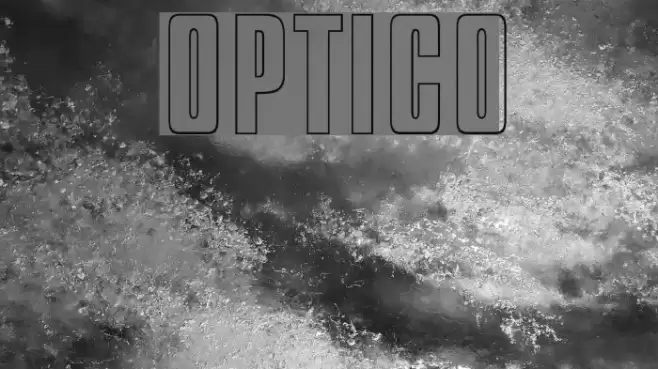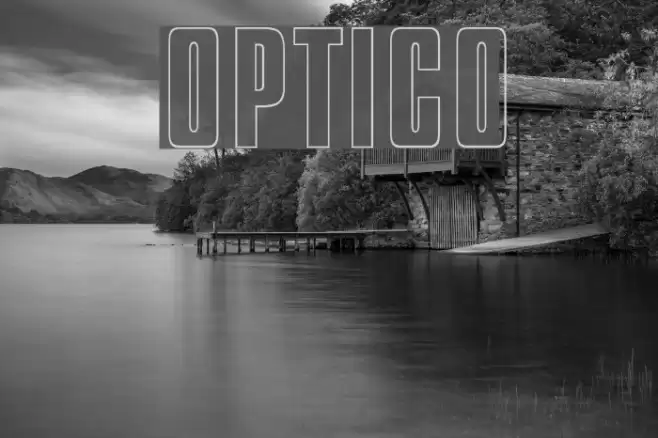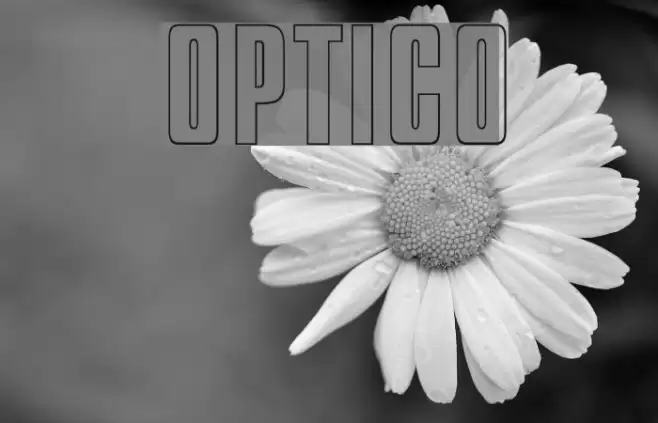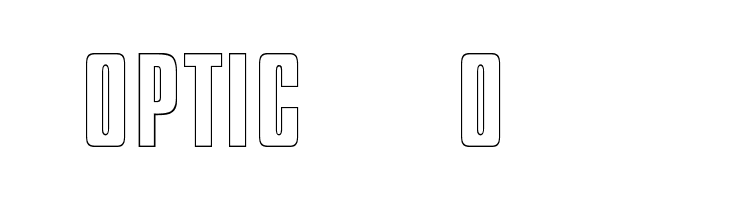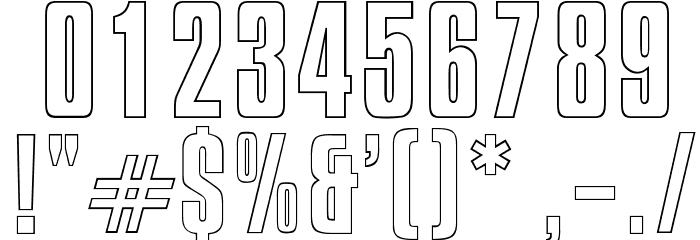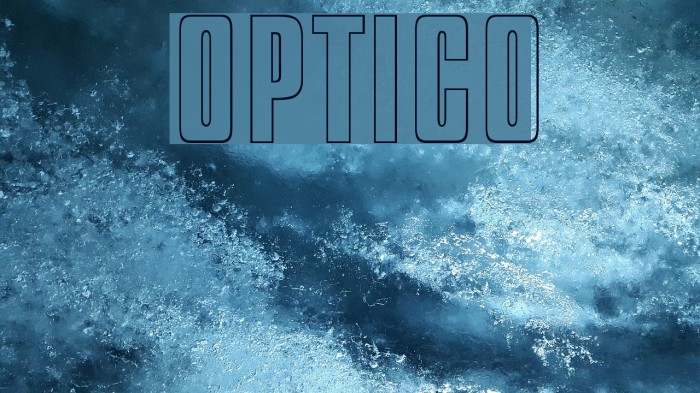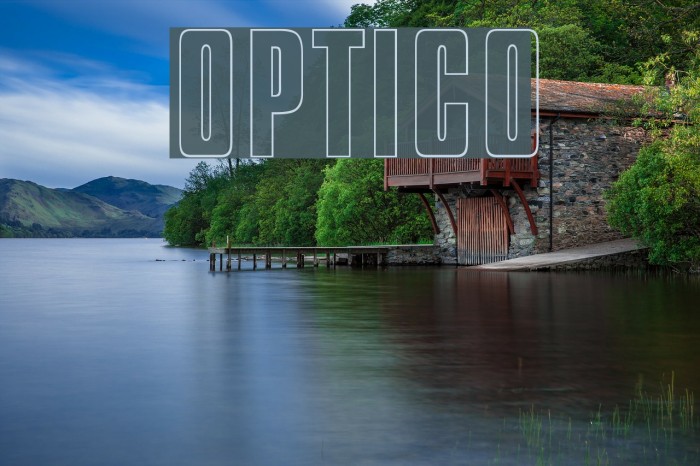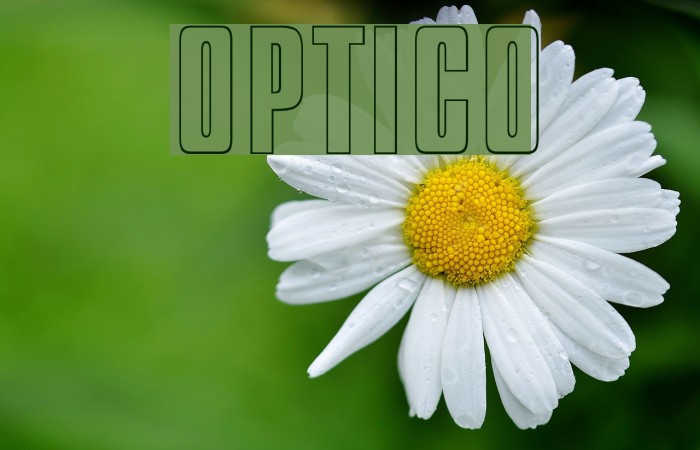
OPTICompitOutline Font
OPTICompitOutline Description
This font features a bold, outlined style that emphasizes each character with a strong, clear presence. The uppercase letters are tall and commanding, with a uniform width that gives a sense of stability and strength. The numbers and special characters maintain this consistency, ensuring a cohesive look across all text. The outline design adds a modern touch, making it suitable for eye-catching displays. The characters are evenly spaced, providing a balanced and readable appearance. This font is ideal for projects that require a bold statement, such as posters, headlines, and branding materials.
A bold, outlined font with uniform width and strong presence from Uncategorized fonts.
- Proposed Projects: Ideal for posters, headlines, branding, and any project needing a bold statement.